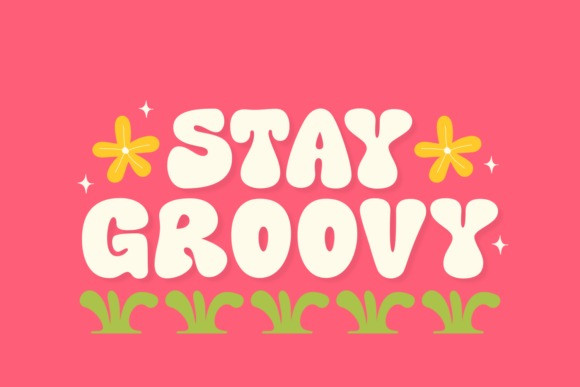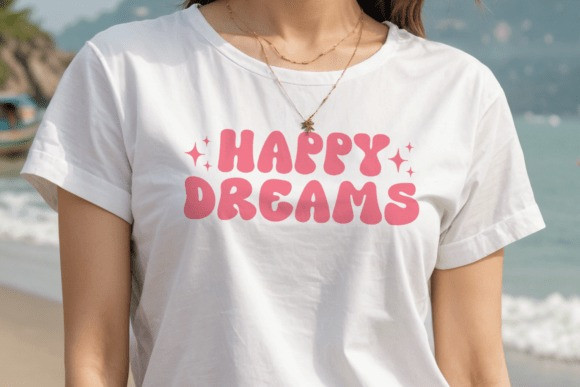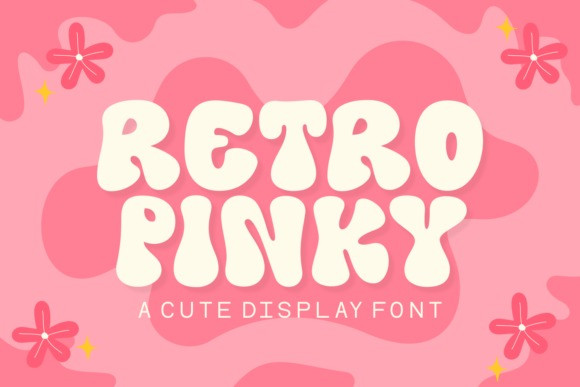
Retro Pinky Font
Retro Pinky Font the epitome of groovy and funky typography. With its bold chunky DNA, it captures the allure of retro charm while exuding abundant cuteness! This sweet, delightful font radiates a wave of loveliness, perfect for channeling a vibe that’s both nostalgic and adorable. With a wavy twist to its characters, Retro Pinky Font is no less than an artistic marvel inspiring a feeling of warmth and cheerfulness. Truly, it is the ultimate crossroad where vintage charm and modern chic meet in sweet harmony to make your typographic journey unforgettable.